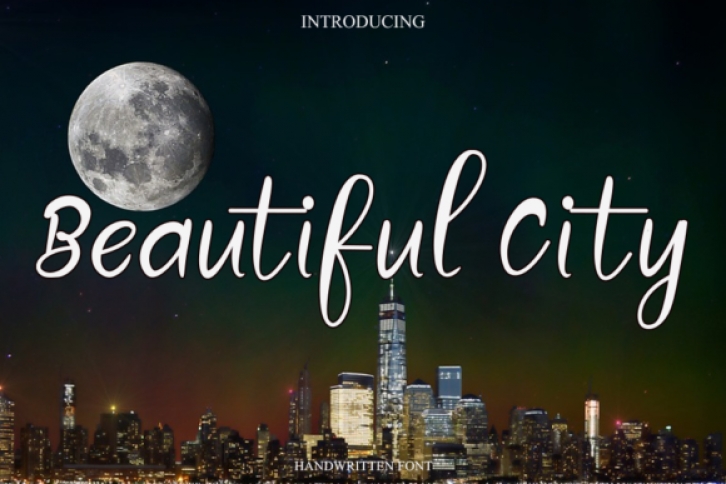
Beautiful City is an elegant handwritten font. Whether you’re looking for fonts for social media or calligraphy scripts for DIY projects, Beautiful City will turn any creative idea into a true piece of art!